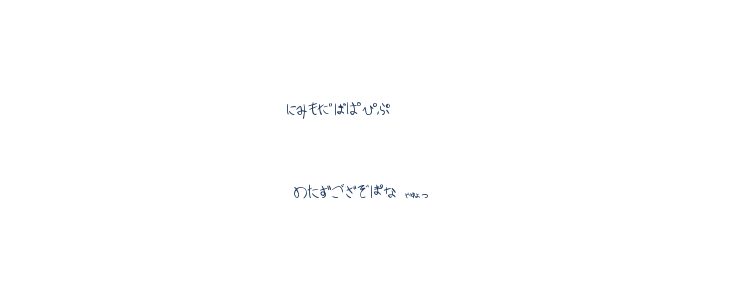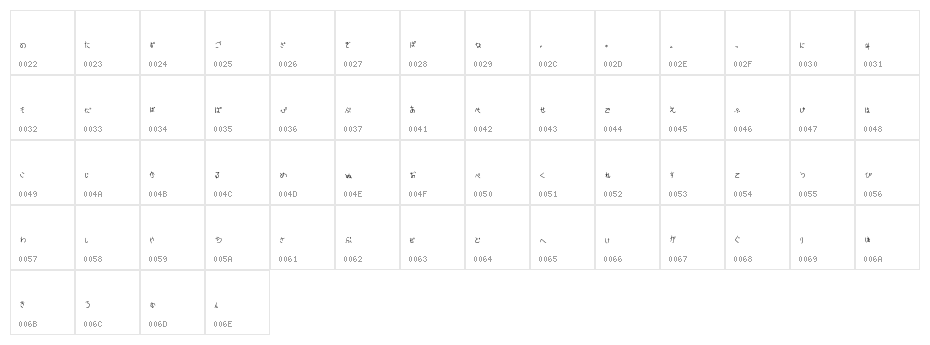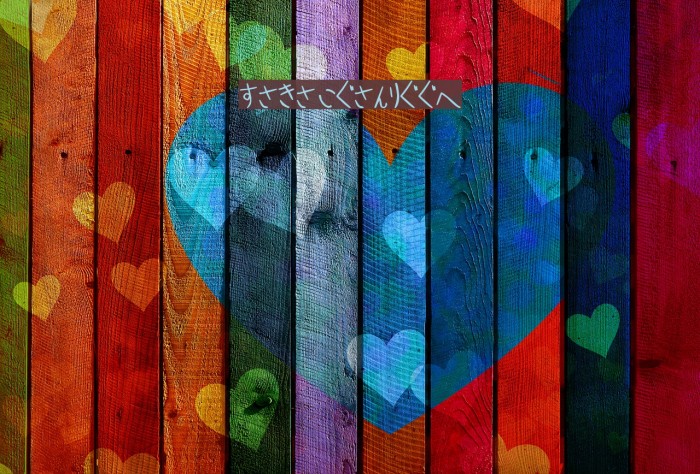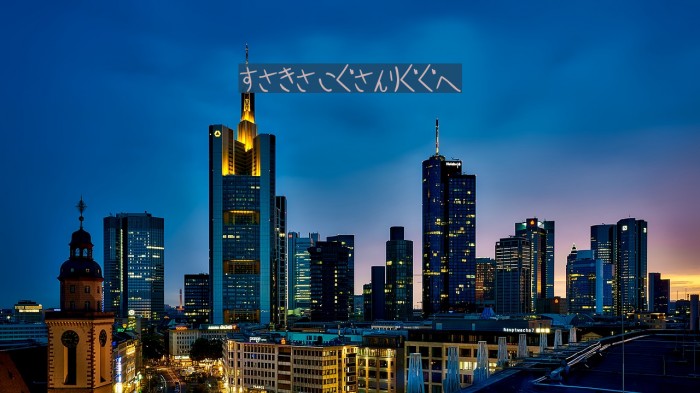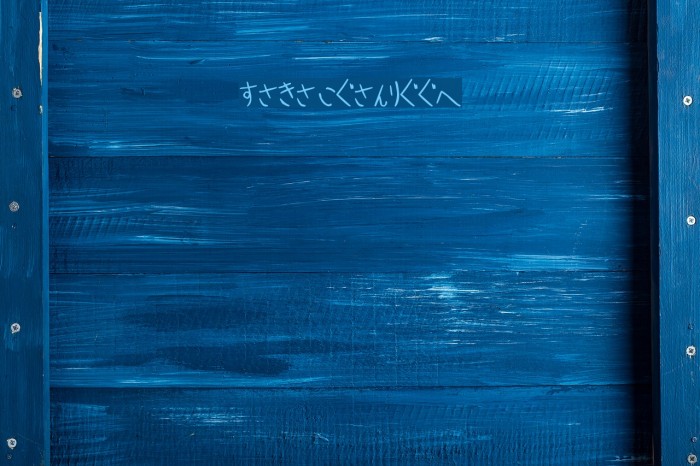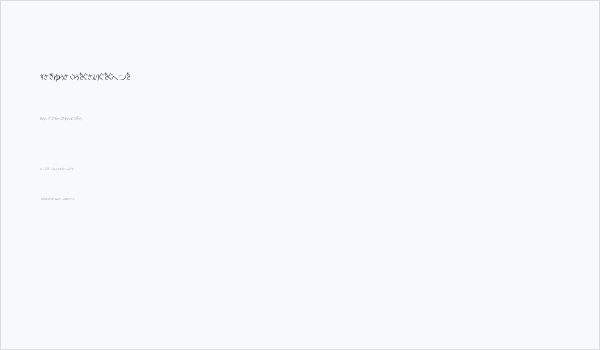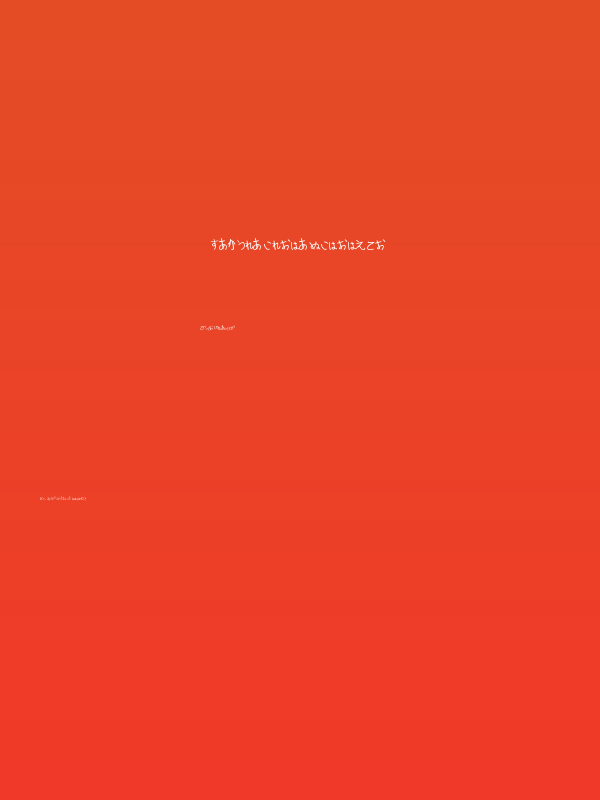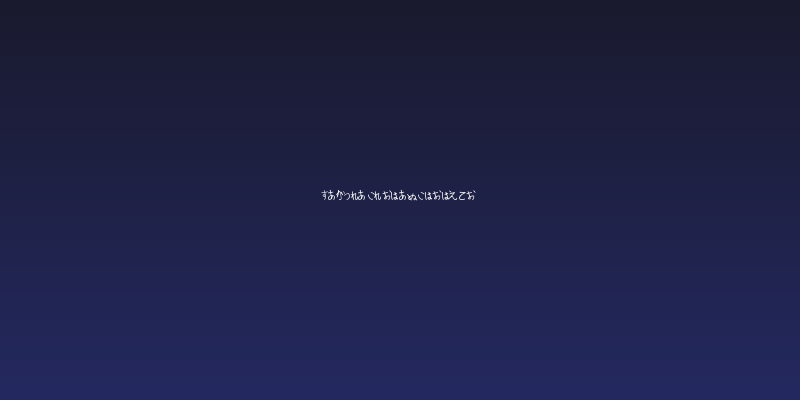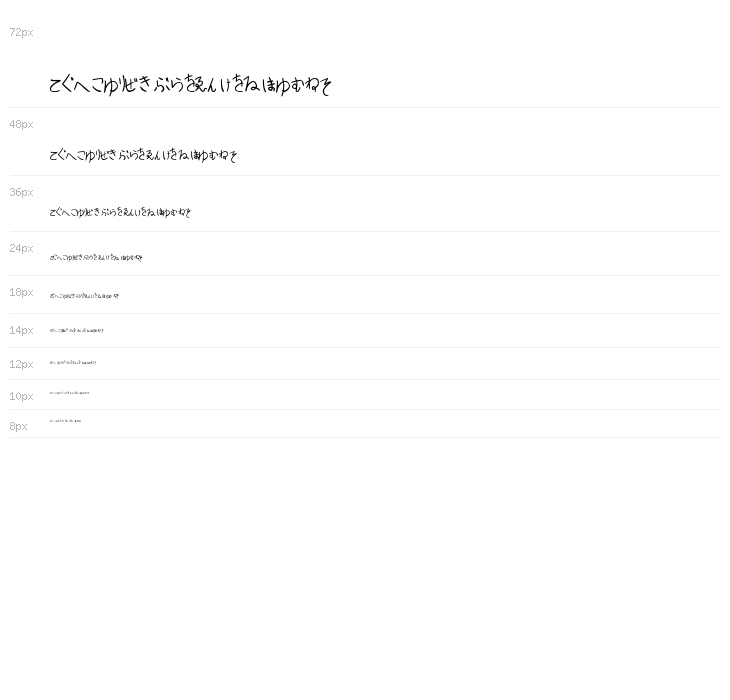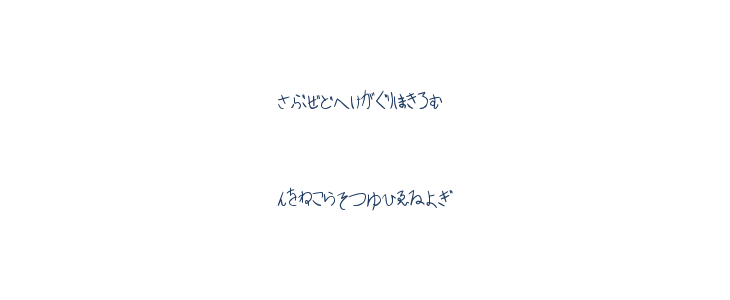
Sakura Irohanihoheto Font
Sakura Irohanihoheto Description
This font features a playful and whimsical style, reminiscent of handwritten Japanese characters. The strokes are fluid and organic, giving it a natural and informal appearance. The characters are slightly irregular, adding to the charm and authenticity of a handwritten note. The font maintains a consistent weight throughout, with moderate spacing between characters that ensures readability while preserving its casual aesthetic. It's suitable for projects that aim to convey a personal touch or cultural authenticity.
| Overall Style | Casual, Whimsical |
| Use Case | Greeting cards, Personal notes, Cultural projects |
| Proposed Projects | Ideal for greeting cards, cultural event posters, personal blogs, or any project seeking a personal, informal touch. |